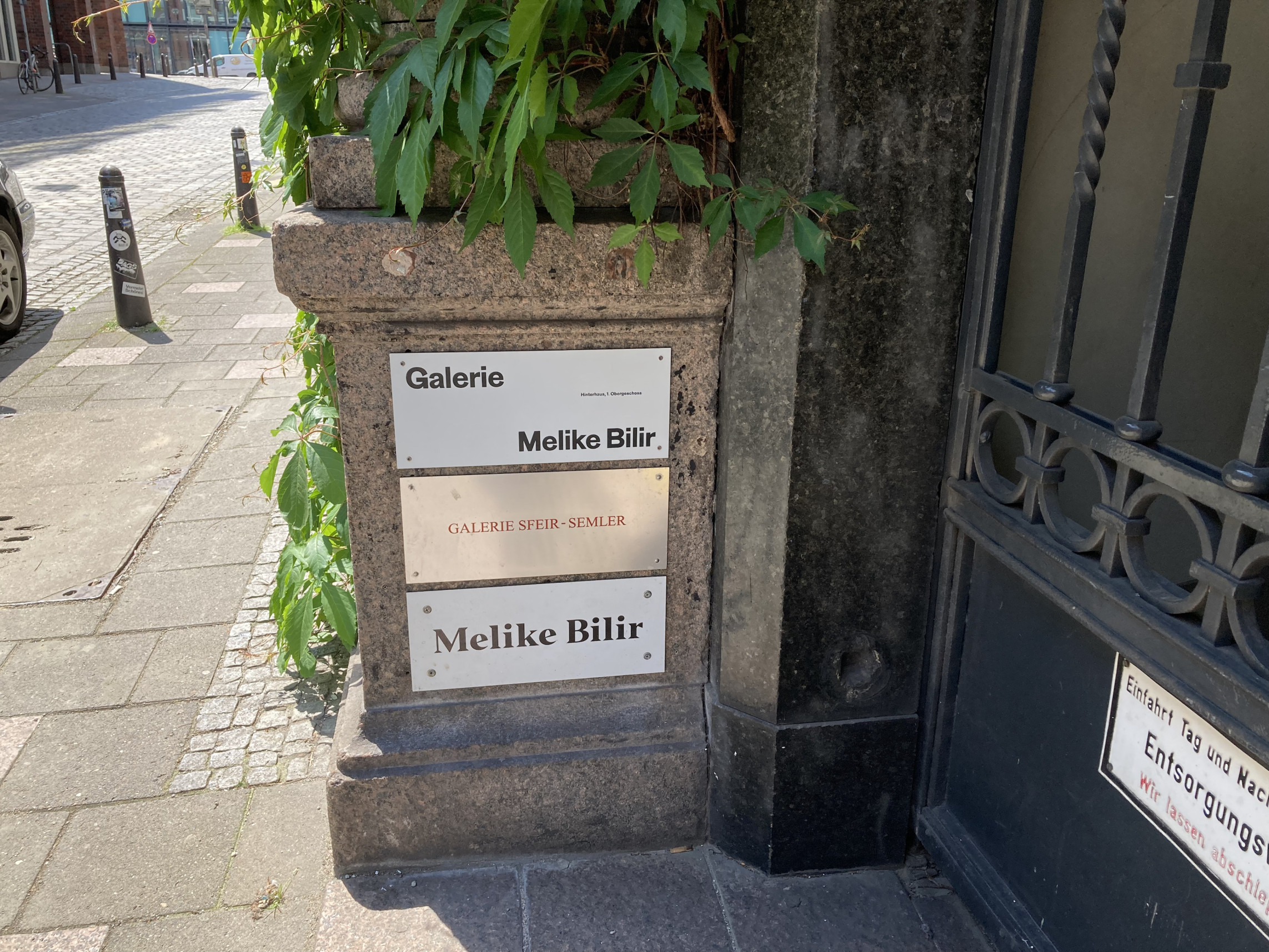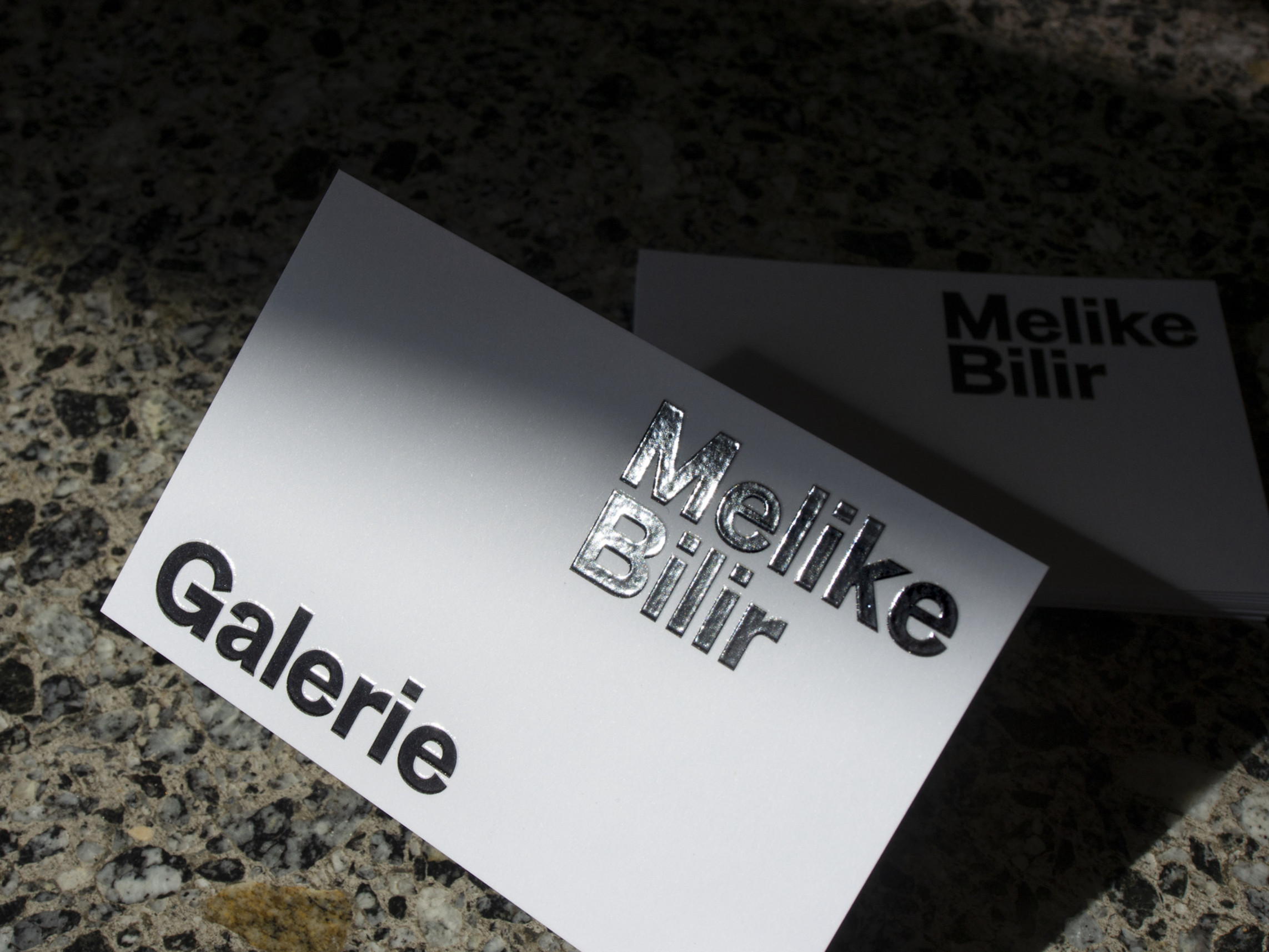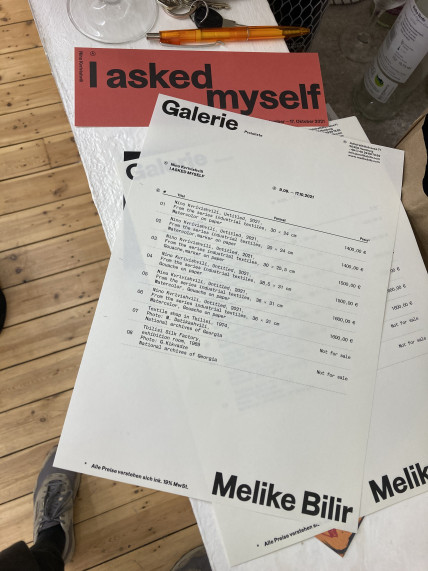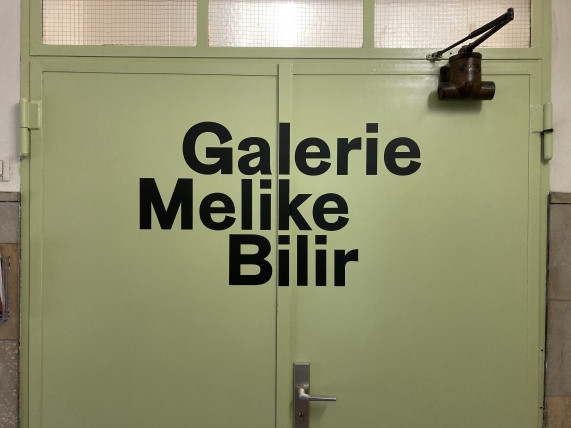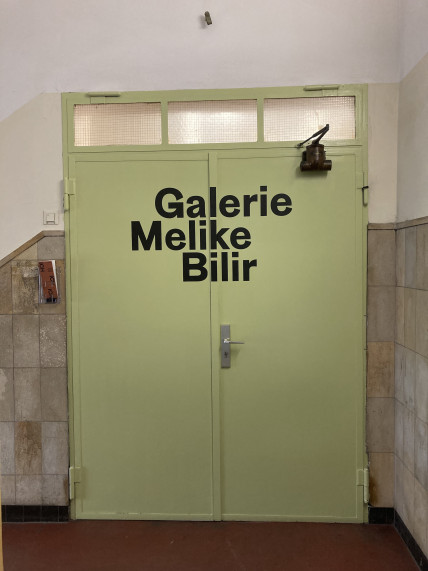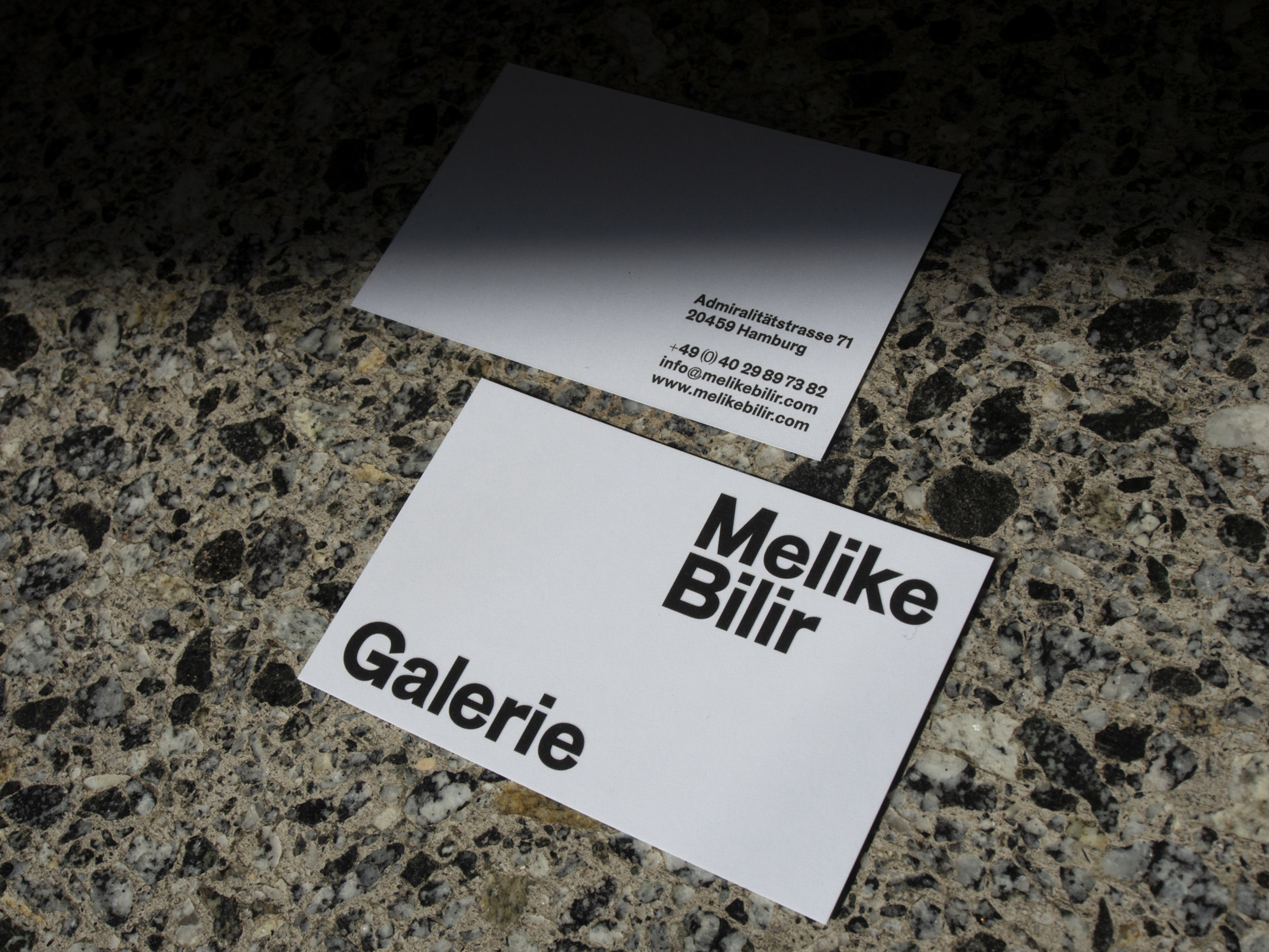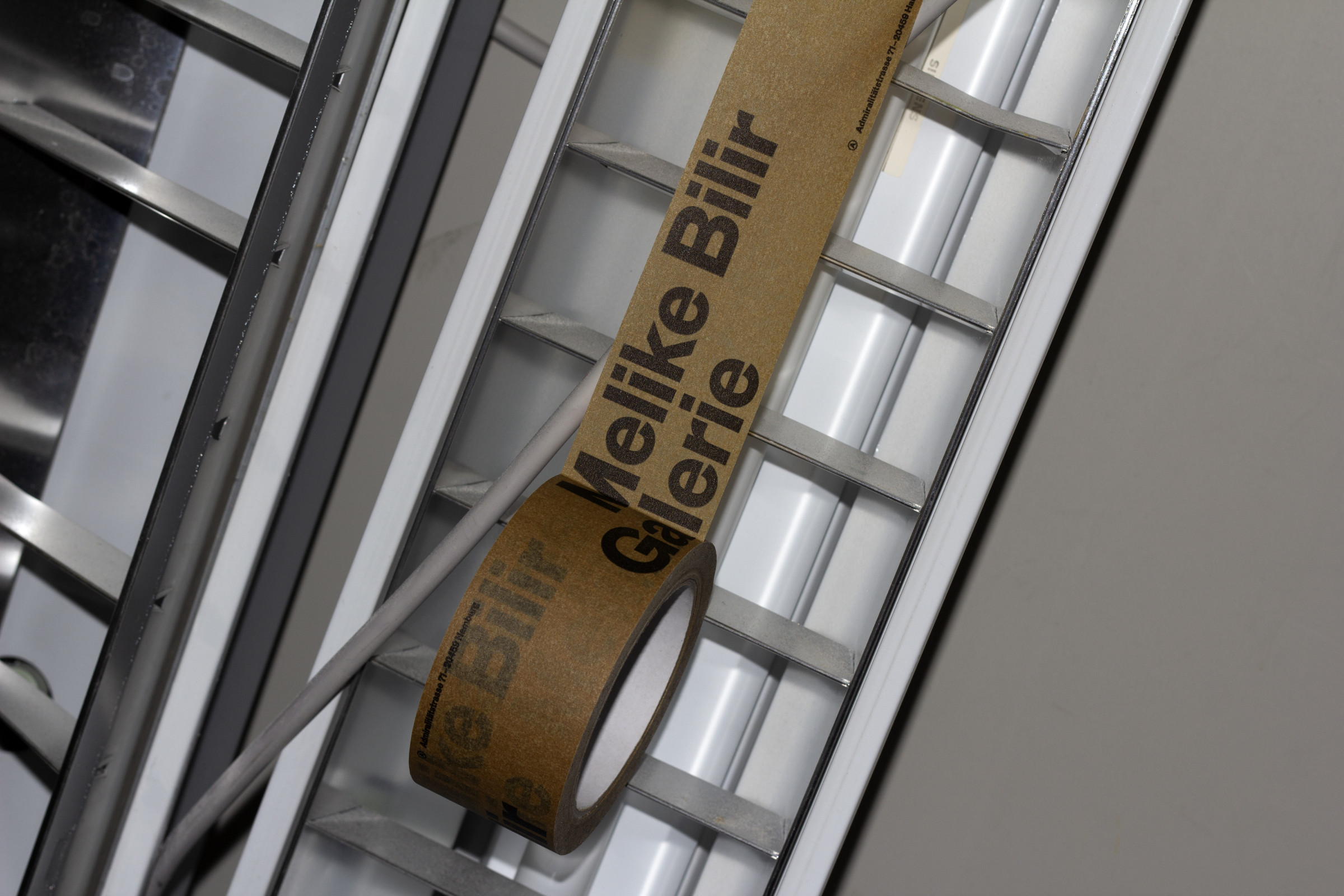
Galerie Melike Bilir
The corporate identity for Gallery Melike Bilir is characterized by a striking, strong typeface and clear colors — it is modern and minimalist to set out space for the art that is shown in the gallery.
As part of this rebrand we created a interchangeable custom logo, letterhead, website and multiple publications.
Typeface: BT Grotesk by Scott Vander Zee